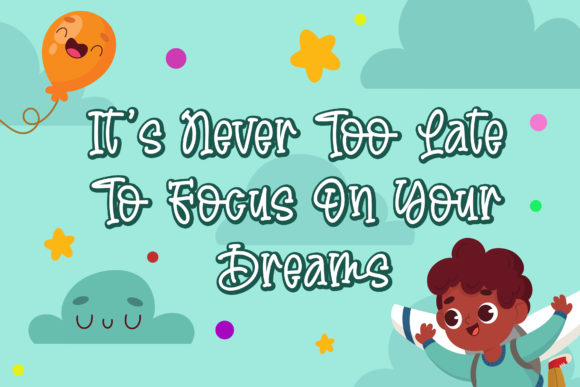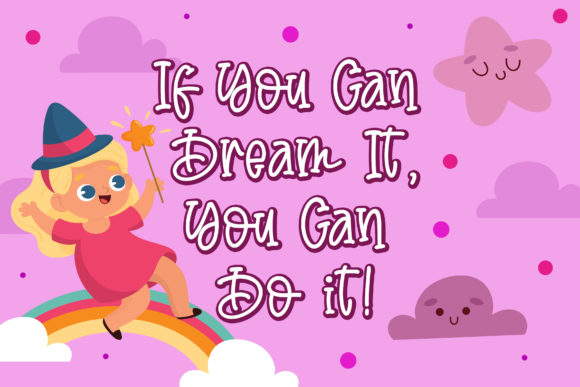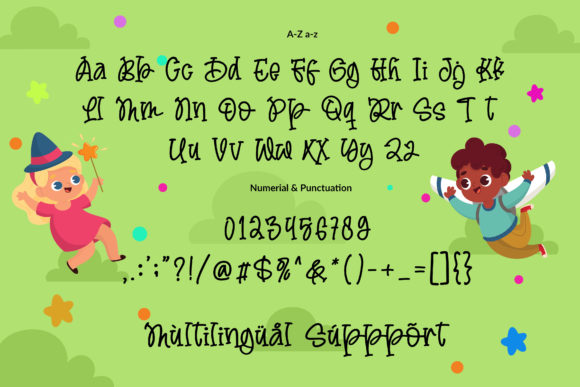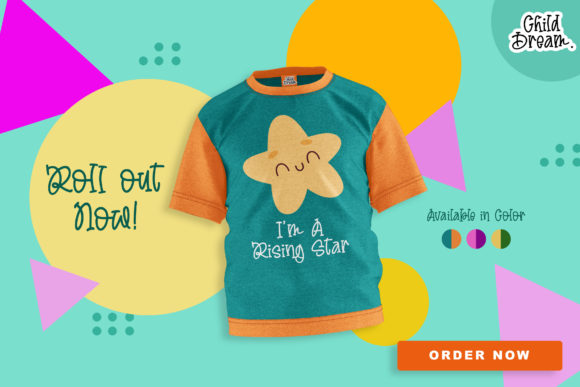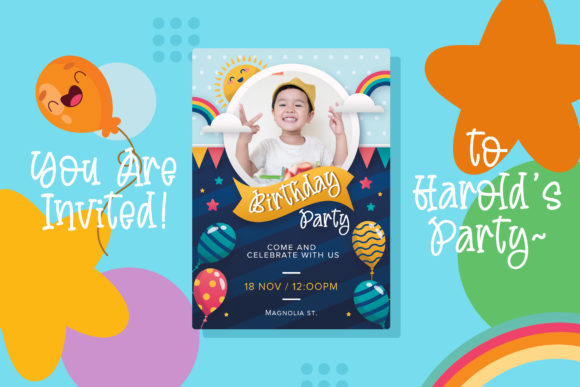
Introduction to Child Dream Font
Child Dream is a cute and quirky handwritten font.
Incredibly friendly and relaxed, this font will make each of your designs look lovely .
Key Features of Child Dream Font